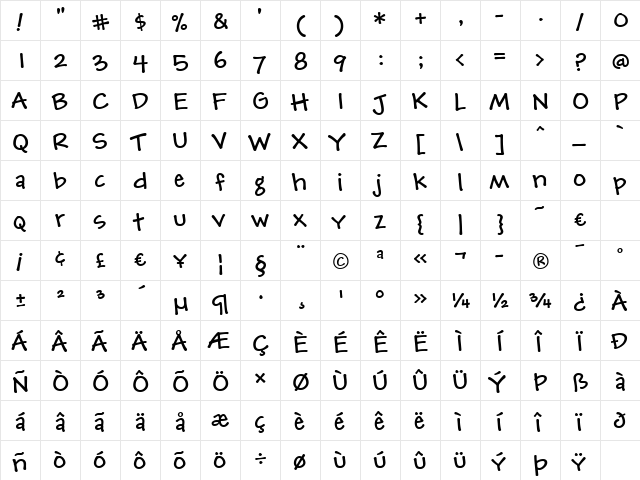
FM Falling Leaves Moon BT Roman
Design Context for FM Falling Leaves Moon BT Typeface
FM Falling Leaves Moon BT is a composed and adaptable typeface that performs quietly and consistently across a wide range of design contexts.